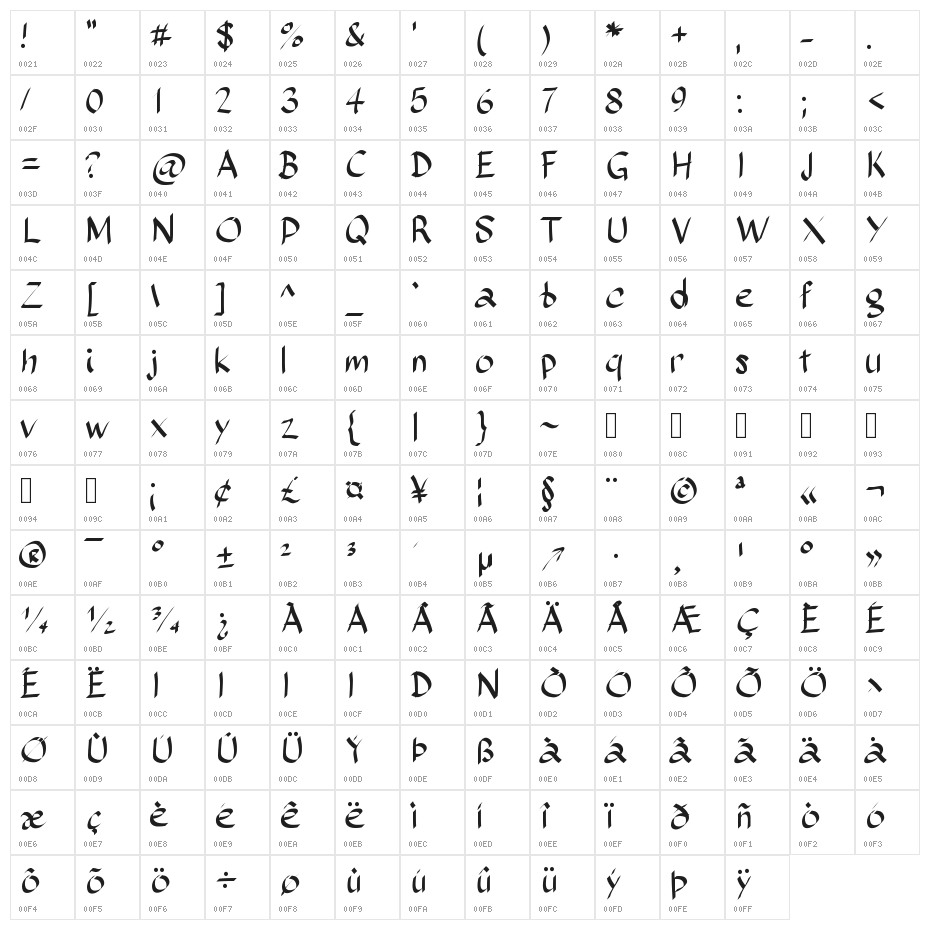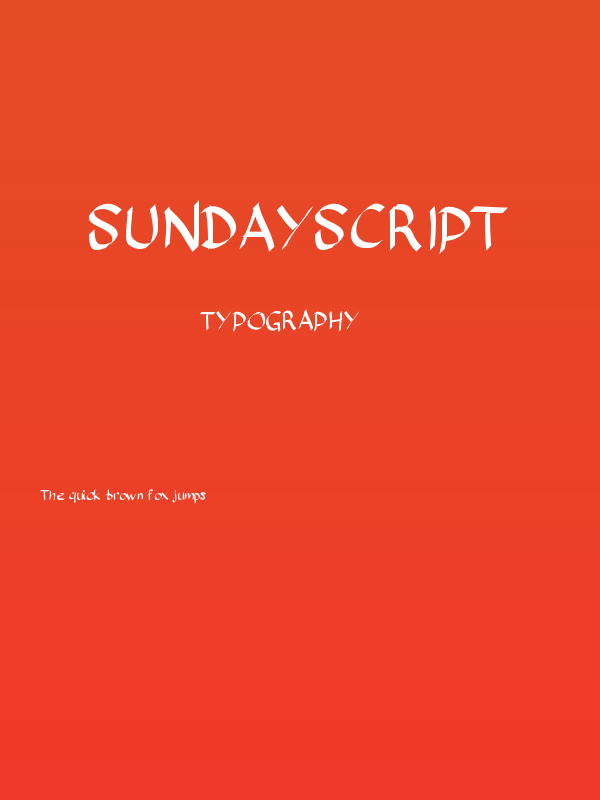
Sundayscript Font
Sundayscript Description
This font features a dynamic and energetic script style, characterized by its bold and expressive strokes. The letters exhibit a hand-drawn quality, with a playful yet sophisticated flair. The uppercase characters are slightly more structured, while the lowercase letters flow with a more casual and relaxed appearance. The numbers and special characters maintain the same lively and artistic style, making the font versatile for various creative applications. The overall impression is one of movement and creativity, suitable for projects that require a personal touch.